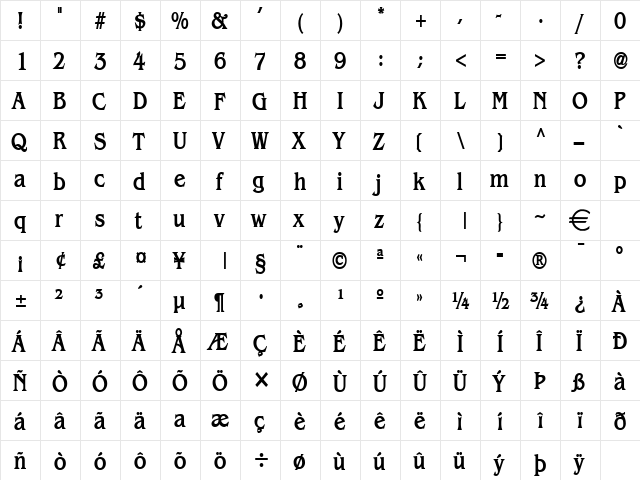
BangleCondensed Bold
Design Context for BangleCondensed Typeface
BangleCondensed takes a measured approach to typography — its balanced proportions and neutral character make it a reliable workhorse for both digital and print work. Its bold stroke weight gives it real presence on the page. The condensed width makes it efficient for tight spaces without sacrificing legibility.